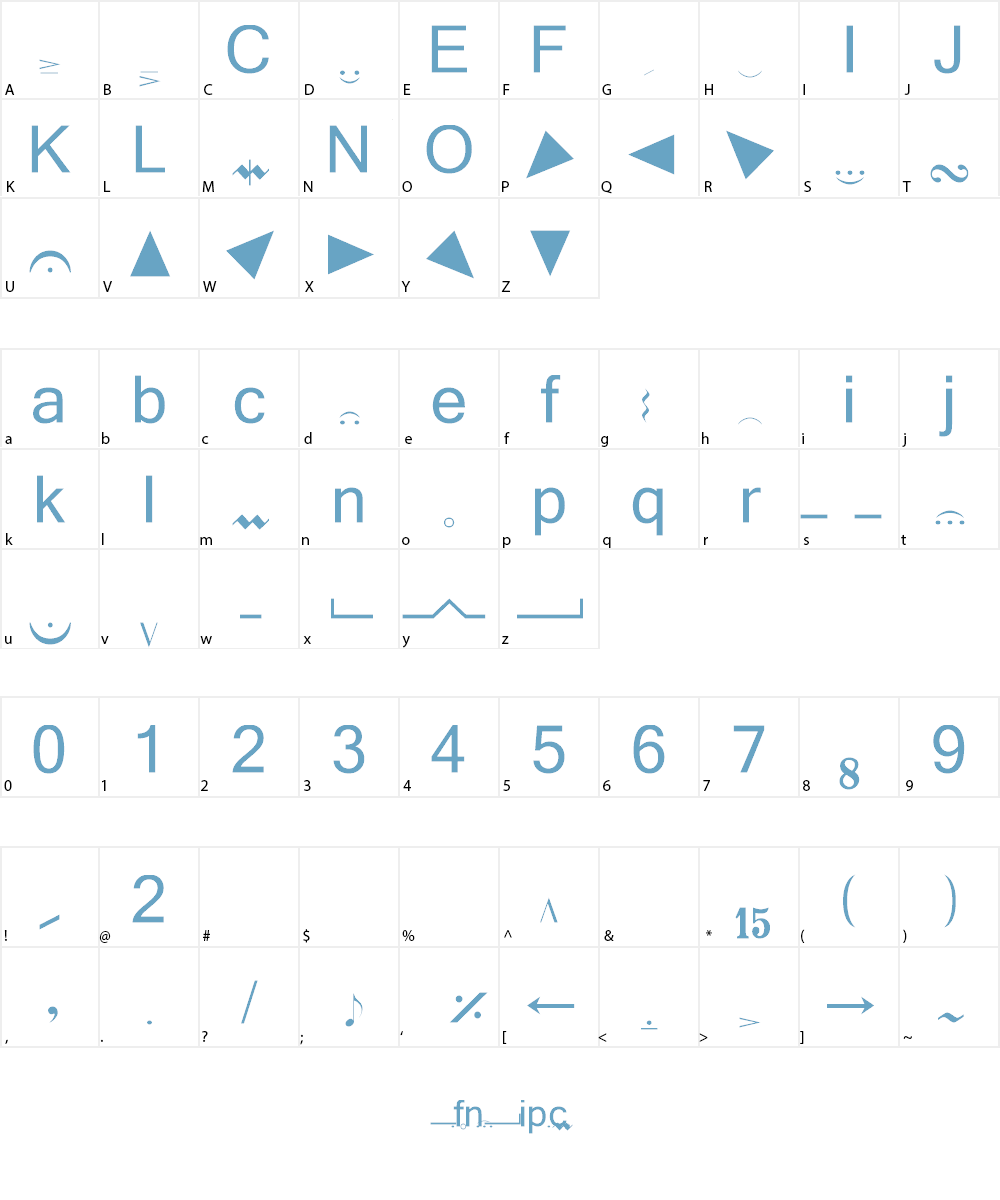
DVMarticulations solves a consistent problem with the articulations in music fonts: how to center them properly. Most font characters have the origin point (the "handle" that users have to drag to move them) in the lower left hand corner. If the user wants to center the marking on a notehead, a numeric offset has to be used to move the center of the character over/under the notehead. DVMarticulations has the origin point directly in the center of the character, so that when the character is "centered" over a notehead, it really is centered. In addition, there are some uncommon characters included (glissandi with up-arrows and down-arrows, "Mozart" carets, "long" square fermatas) and the tenuto and accents are thicker than most other articulation fonts. The "regular" fermata is also somewhat smaller and rounder than most other music fonts' fermatas.